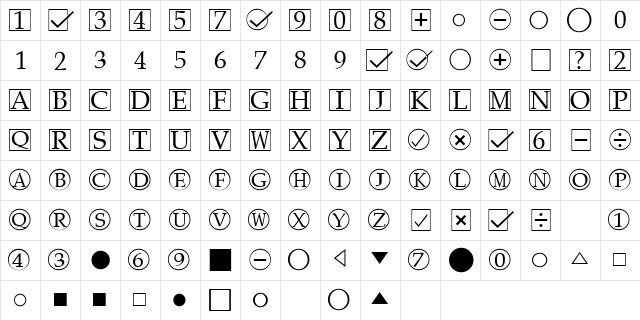
KensingtonTest Regular
Design Context for KensingtonTest Typeface
KensingtonTest takes a measured approach to typography — its balanced proportions and neutral character make it a reliable workhorse for both digital and print work.
Pro Tip: Pair KensingtonTest with a font of contrasting weight or personality to build a more expressive typographic hierarchy.